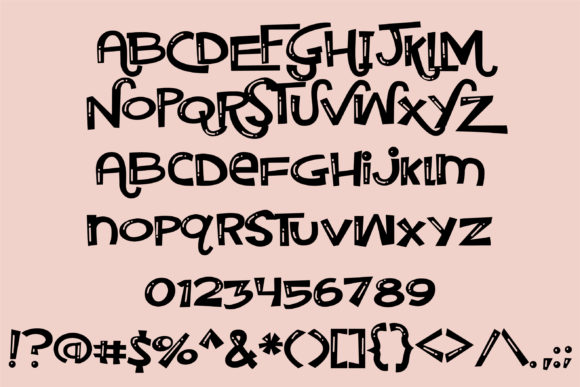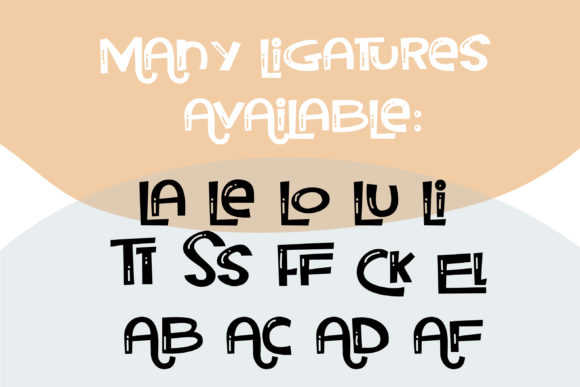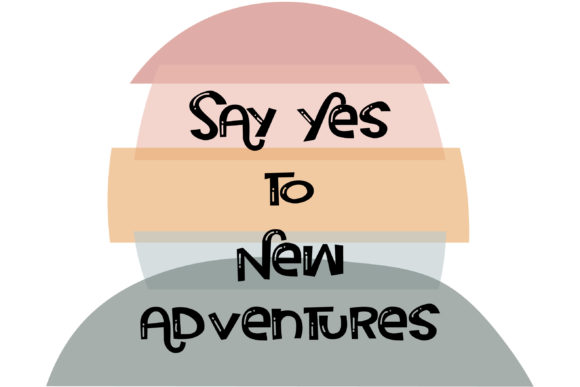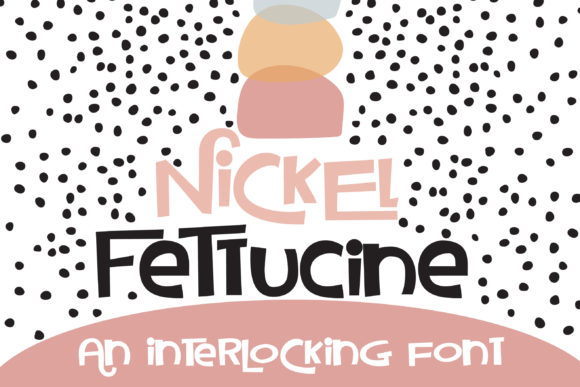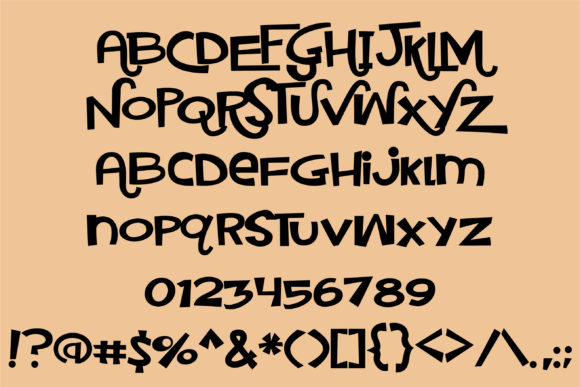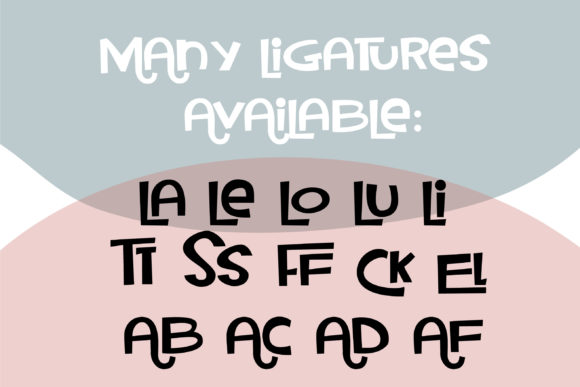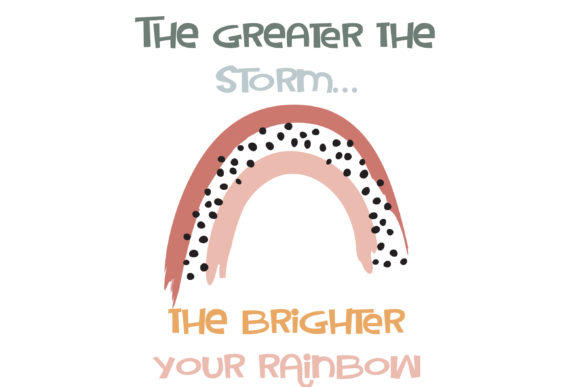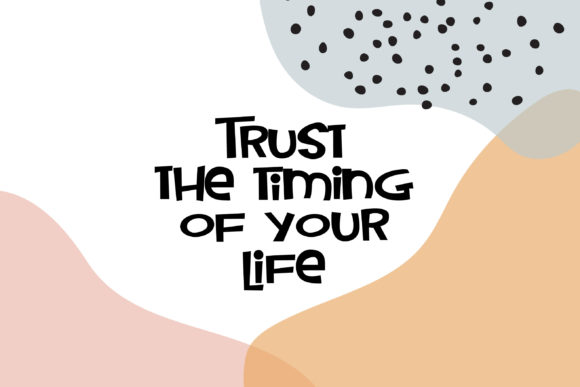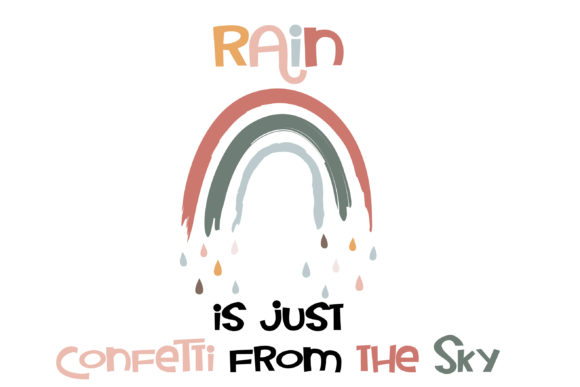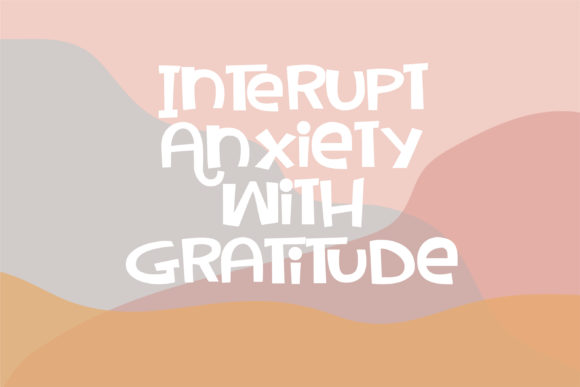
Nickel Fettucine and Luster Font
About Nickel Fettucine and Luster Font
Nickel Fettucine and Luster is a bold handwritten font, with chunky and wide characters. Use this font to make each of your creative ideas stand out!